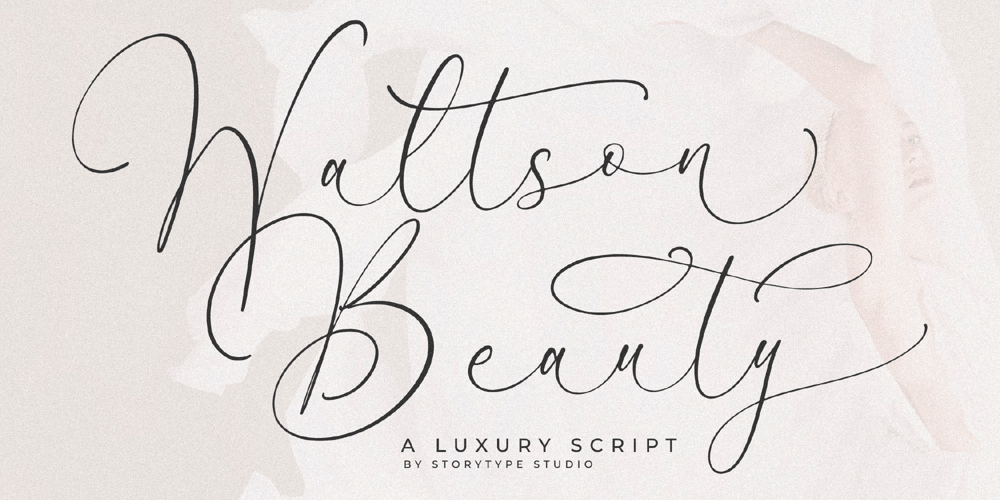
Waltson Beauty Font Family was designed by Heru Utama Putra and published by Letterena Studios. Waltson Beauty contains 2 styles and family package options. Waltson Beauty is a delicate and elegant handwritten font. Its distinct and well-balanced letters make this font a masterpiece. Fall in love with its incredibly versatile style and use it to create spectacular designs! This font is PUA encoded which means you can access all of the amazing glyphs and ligatures with ease!